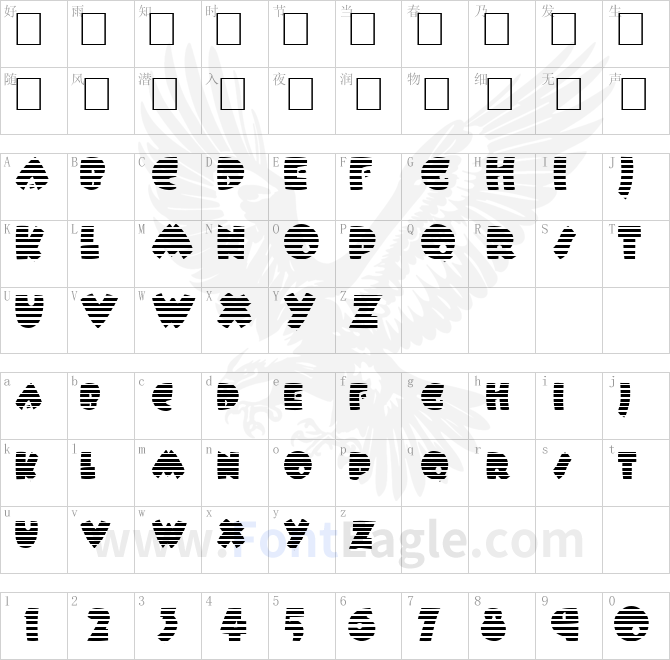
FZ-JAZZY-9-STRIPED is a great font, widely used in graphic design, single-page menu design, poster design and other fields, and is deeply loved by designers.FZ-JAZZY-9-STRIPED download.